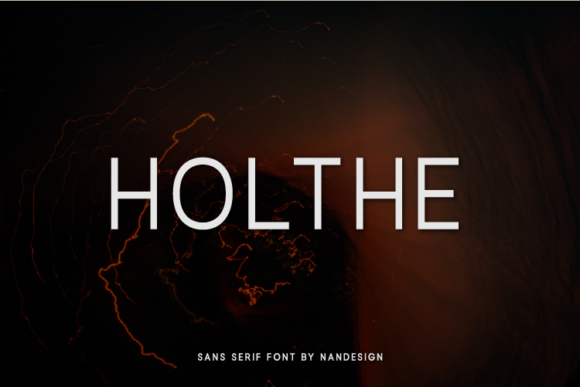
Holthe Font
Dive into the world of Holthe Font, a captivating sans serif masterpiece crafted to enhance your creative endeavors. Experience the allure of its clean, thin, and smooth lines, designed to turn heads and leave a lasting impression. Whether you're a seasoned designer or just starting your artistic journey, Holthe is the ultimate companion for your projects.
Indulge in the versatility of Holthe Font. Its effortless charm seamlessly complements any design concept, breathing life into T-shirt designs, logos, posters, and more. Let your imagination soar as you witness the transformation of ordinary text into extraordinary art.
Unleash the power of Holthe Font and elevate your designs to new heights. Its modern and sophisticated aesthetic captivates audiences, leaving them spellbound. Whether you seek a touch of elegance or a dash of intrigue, Holthe Font delivers effortlessly.